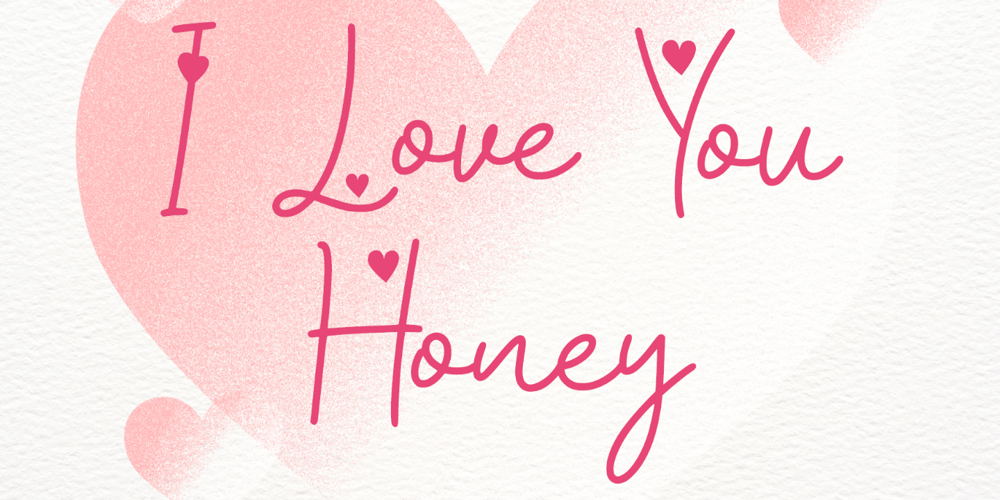
Aisha Valentine
Aisha Valentine font
Aisha Valentine Font Family was designed by Isroni Yoga Prasetya and published by Yoga Letter. Aisha Valentine contains 1 styles and family package options. “Aisha Valentine” is a beautiful and lovely monoline handwritten font. This font is equipped with uppercase, lowercase, numerals, punctuations and multilingual support. It is very suitable for weddings, invitations, valentines, banners, posters, prints, branding, stickers, logos and others.